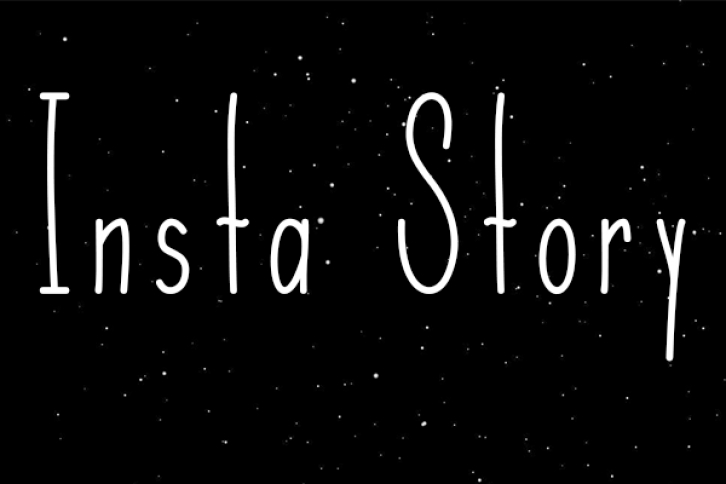
Insta Story is the best choice for creating eye catching logos, branding and quotes. Every letter has a unique and beautiful touch, which will make your design come alive!